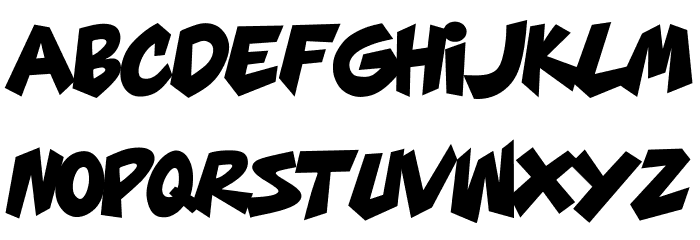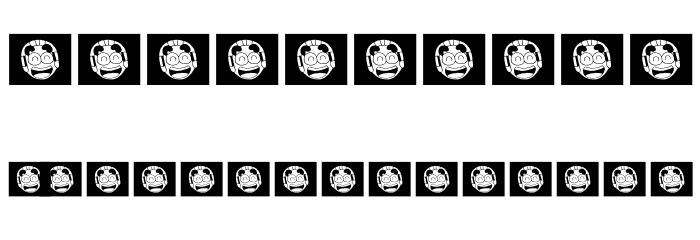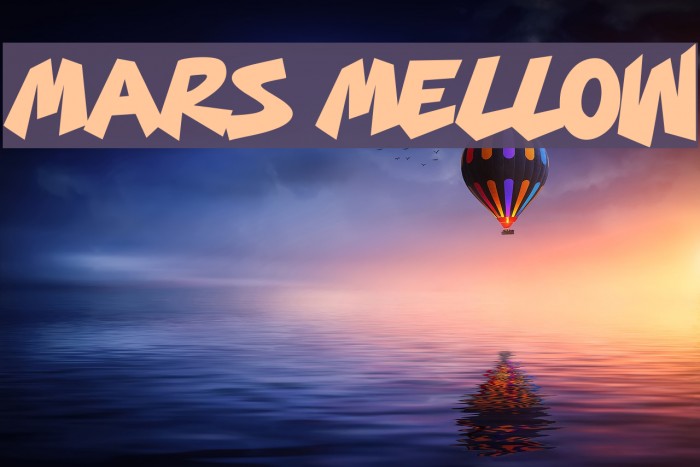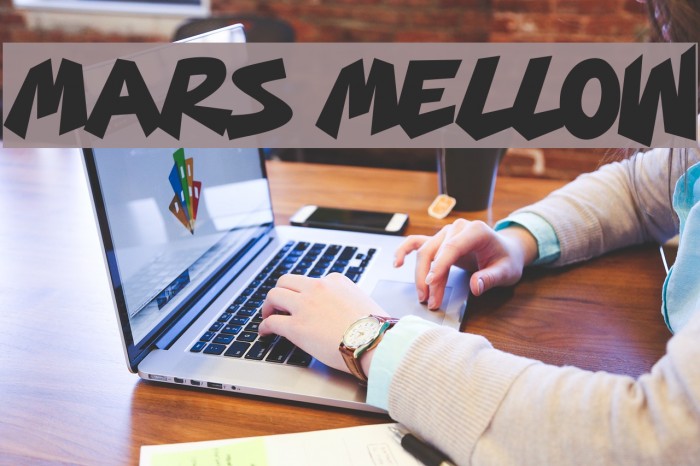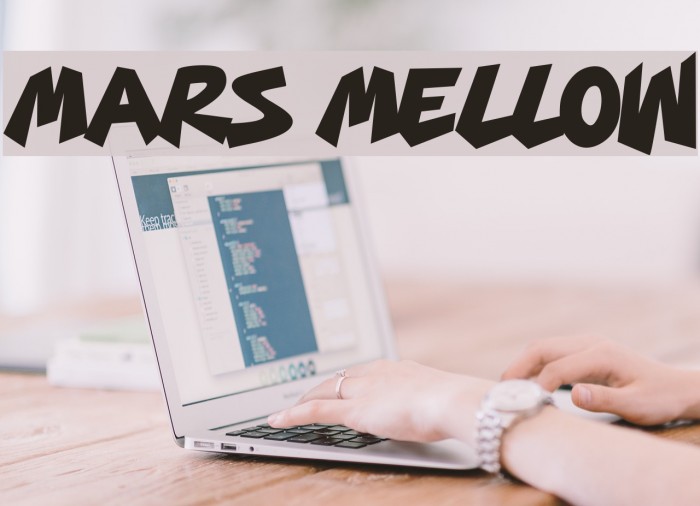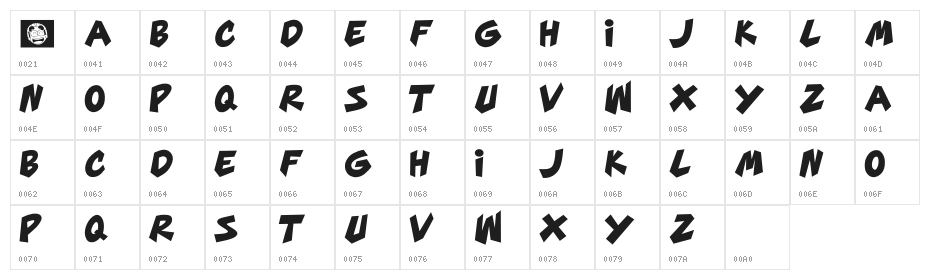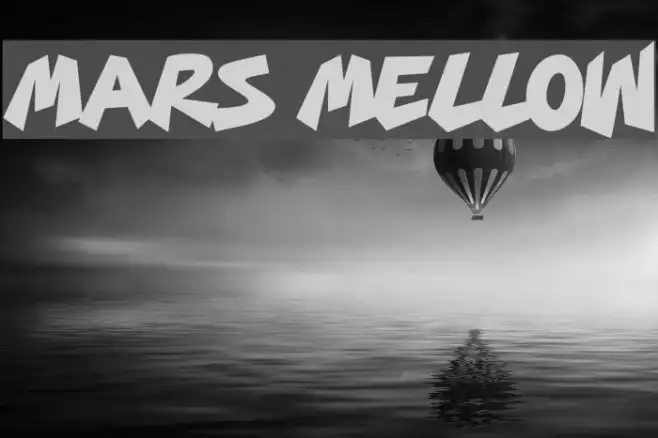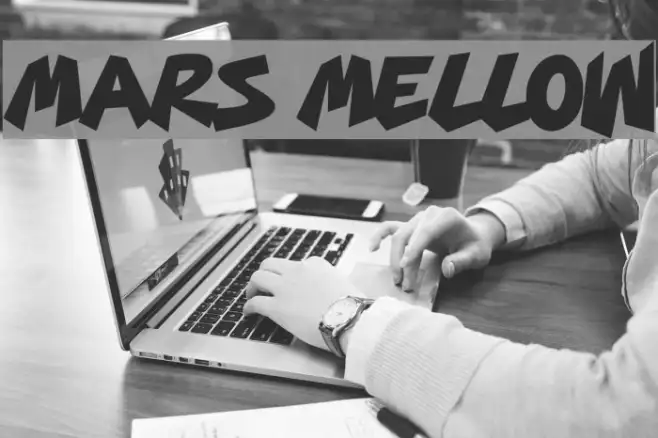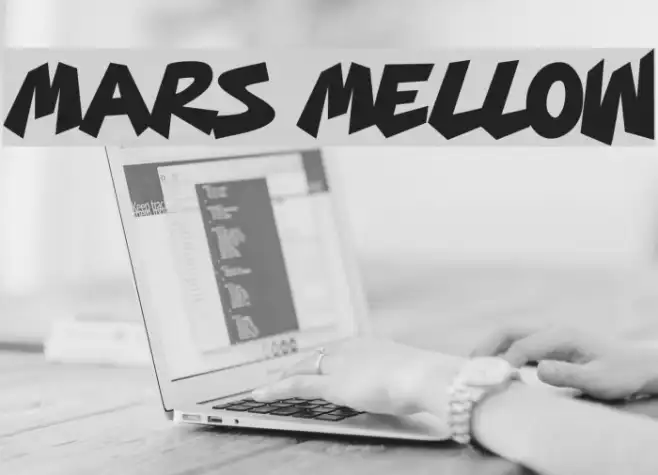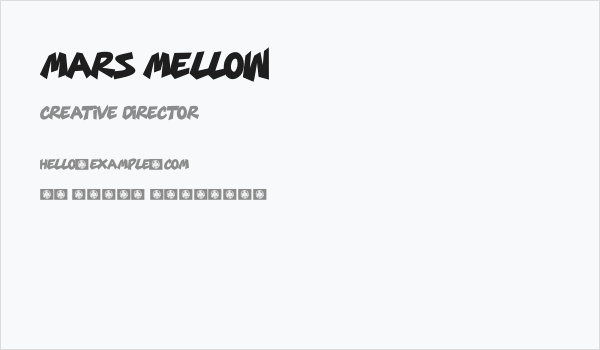
MARS MELLOW Font
This font features bold, angular characters with a playful and dynamic style. The uppercase letters are designed with sharp edges and a slightly forward-leaning stance, giving a sense of movement and energy. The lowercase letters maintain this energetic feel, with a consistent stroke width that adds to the boldness of the design. The font's unique character shapes make it stand out, ideal for grabbing attention. It is particularly suitable for creative projects that require a fun and engaging typeface. The overall design is cohesive, with a strong visual impact that is both modern and slightly edgy.
A bold, angular font with a playful and dynamic style.
- Proposed Projects: Ideal for posters, comic books, video game titles, and branding that requires a fun and energetic typeface.